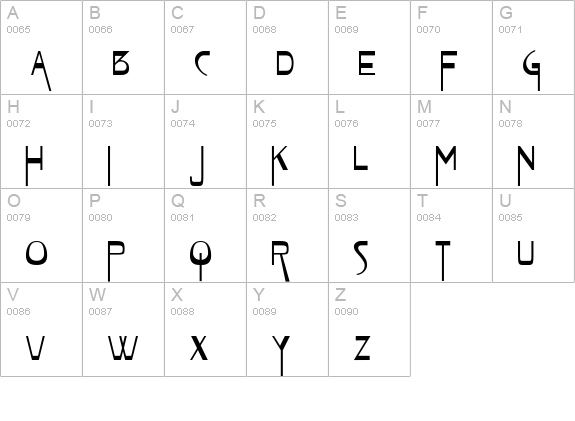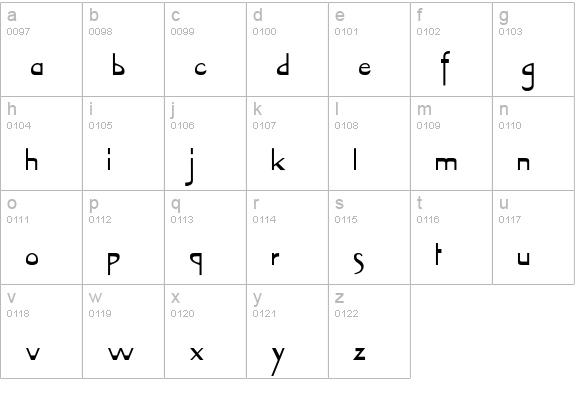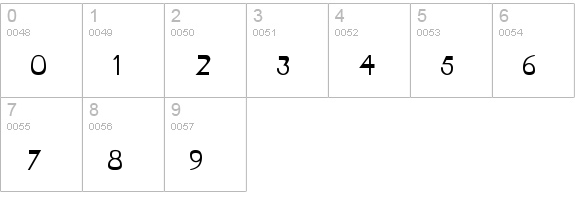
VireoFont-Normal is the standard, neutral variant in the VireoFont typeface family \xE2\x80\x94 well suited to general body text, paragraphs, and standard typographic work.
VireoFont-Normal is a versatile and stylish font that is perfect for any creative project. With its clean and contemporary design, this font will give your designs a professional and polished look. The smooth curves and balanced letterforms make it easily readable, ensuring that your message is conveyed with clarity and impact. What sets VireoFont-Normal apart is the fact that it is not only visually appealing but also completely free. That's right, you can download this amazing font for free at FontsMarket.com. Whether you are a professional designer or a hobbyist, this font is a valuable addition to your font collection. With VireoFont-Normal, you have the freedom to express your creativity without any limitations. Use it for branding, logos, headlines, posters, invitations, or any other design project you can think of. Its versatility allows it to adapt to any style or theme, making it a go-to choice for designers worldwide. The attention to detail in VireoFont-Normal is evident in every letter. Each character is meticulously crafted to ensure consistency and legibility. The spacing and kerning are perfectly balanced, resulting in a harmonious and visually pleasing composition. Whether you are designing for print or digital media, VireoFont-Normal is a reliable choice. It is optimized for both display and body text, ensuring that your message is conveyed effectively across different platforms. Its timeless design ensures that it will remain relevant and stylish for years to come. Don't miss out on the opportunity to elevate your designs with VireoFont-Normal. Download it for free at FontsMarket.com and unlock a world of creative possibilities. Experience the freedom and versatility of this font and take your designs to the next level.